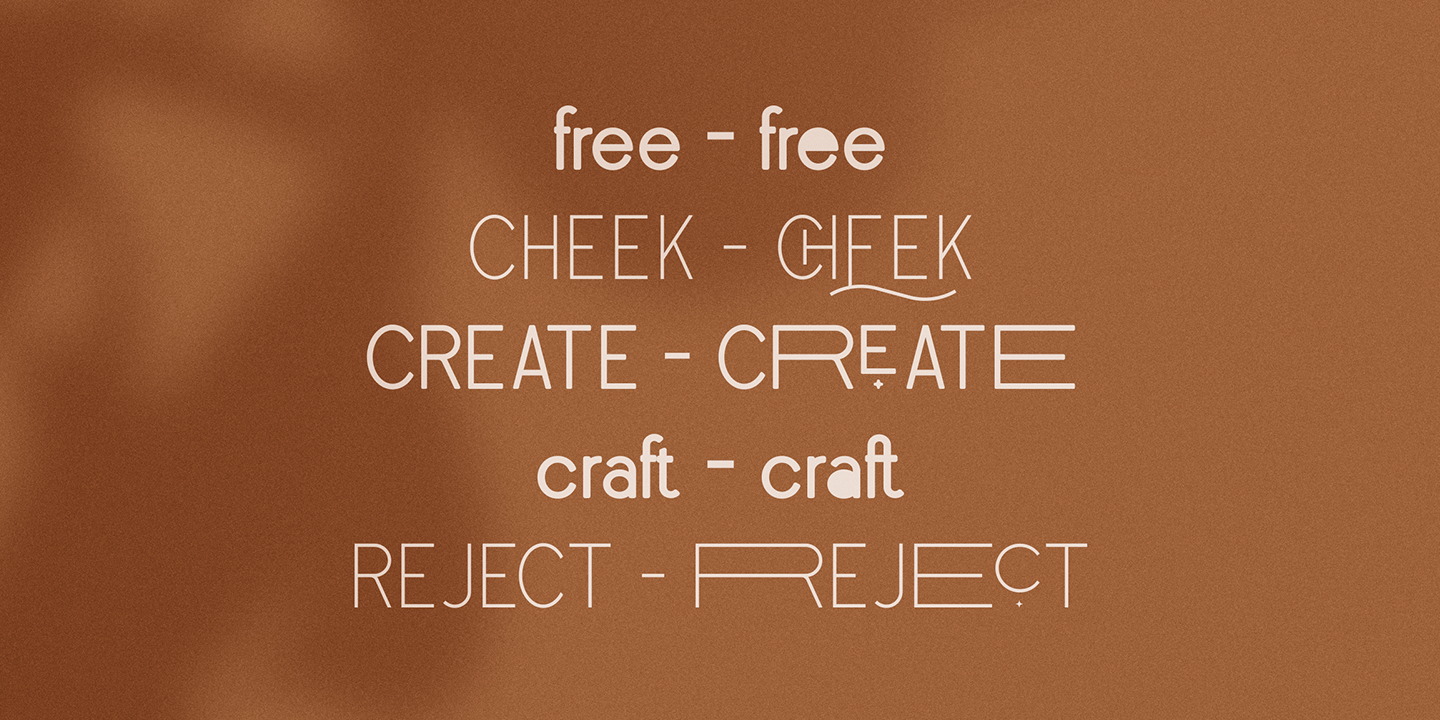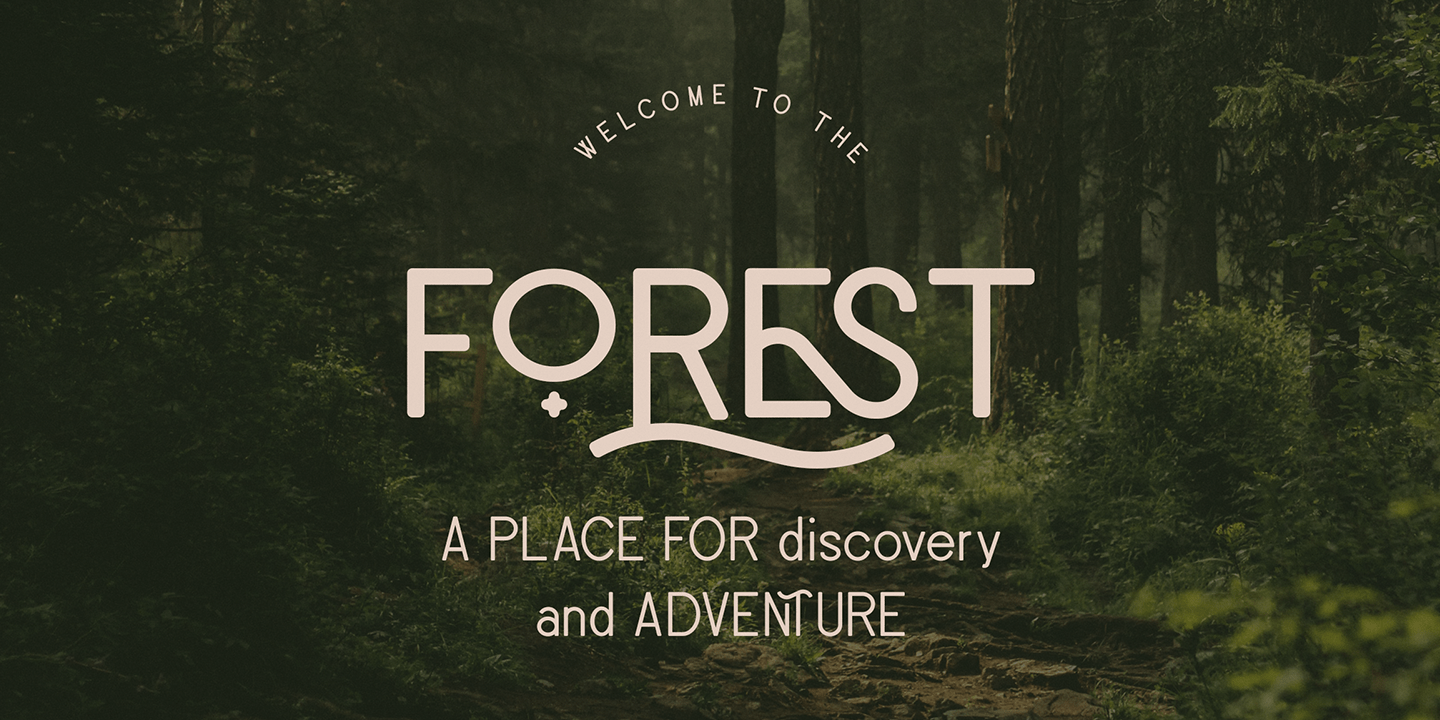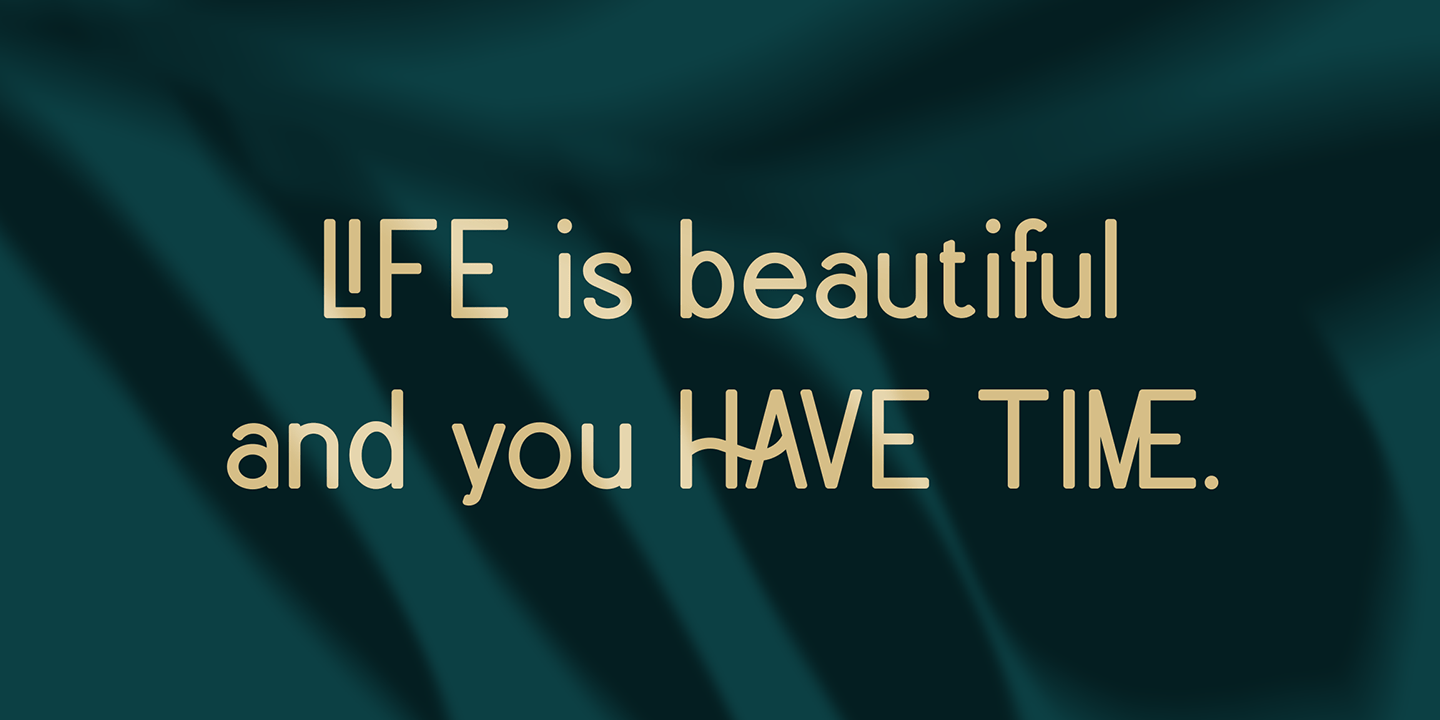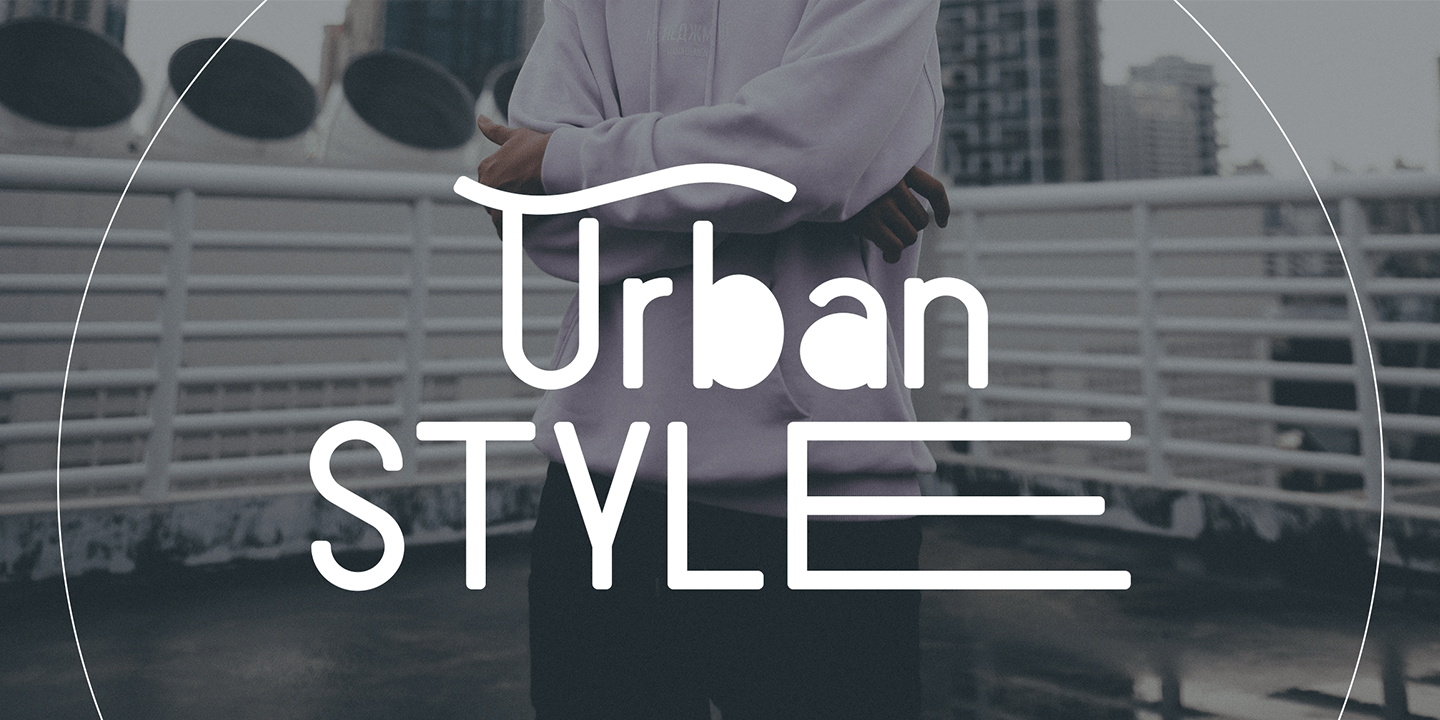
About Enchanted Love
Introducing Enchanted Love – Elegant Sans Serif Typeface – 8 weights Enchanted Love is classic yet creative typeface loaded with 8 fonts, alternate and ligature glyphs to make you typography truly unique! Check Stolen Love first typeface…